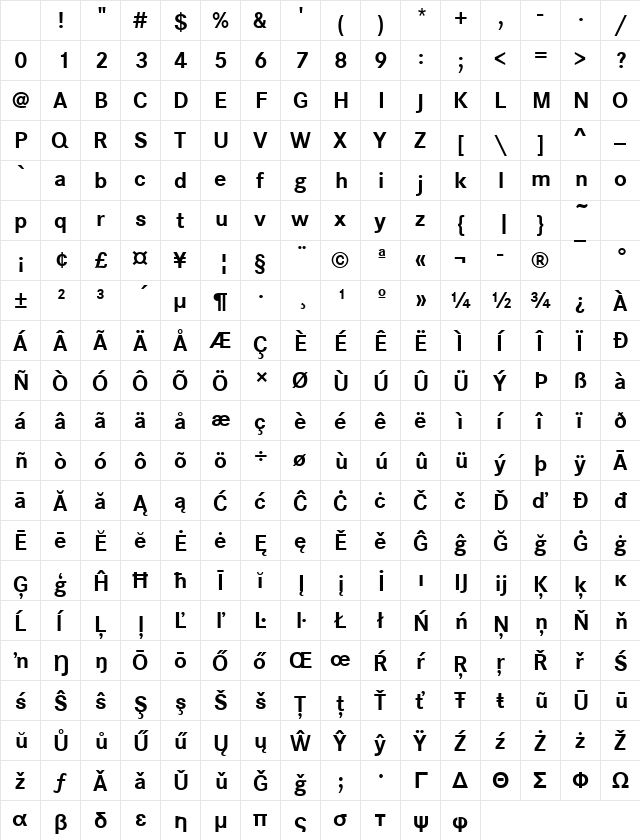
Complete CorpoSDem Bold glyph index. Displaying only characters natively supported by CorpoSDem Bold font.
CorpoSDem is a composed and adaptable typeface that performs quietly and consistently across a wide range of design contexts. Its bold stroke weight gives it real presence on the page.